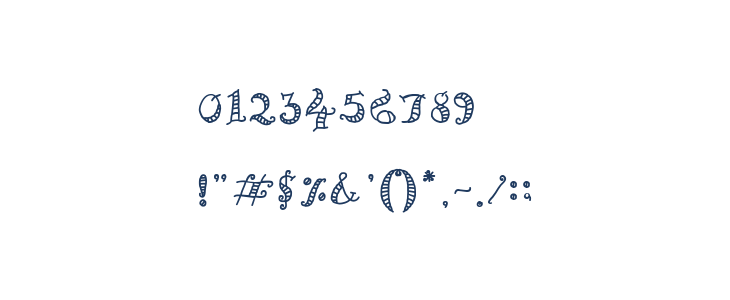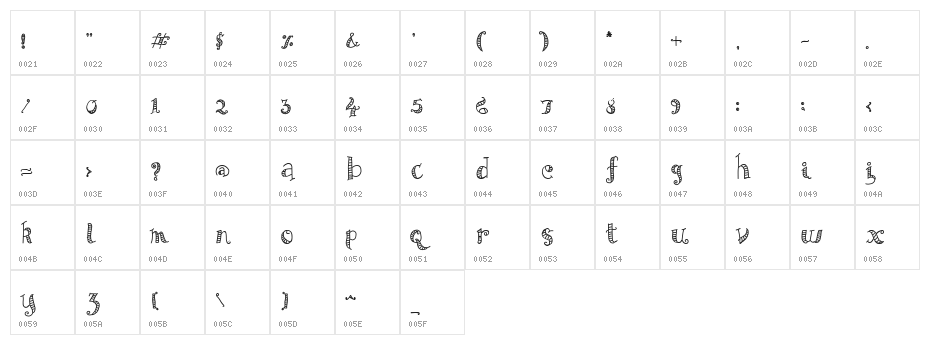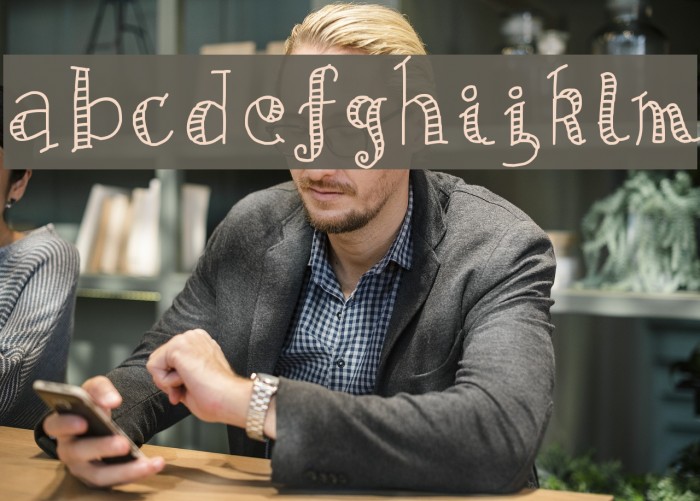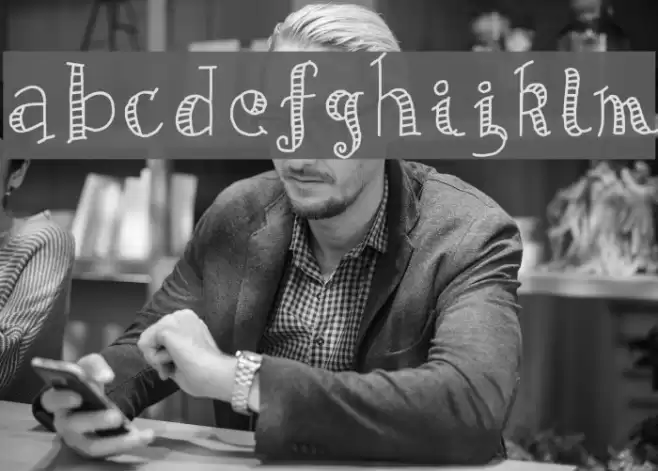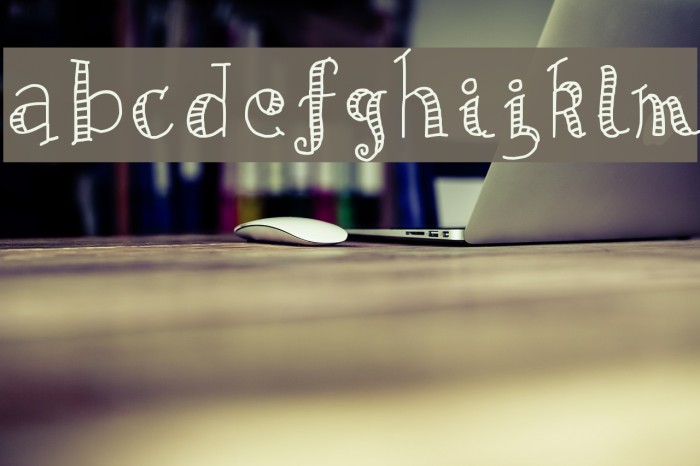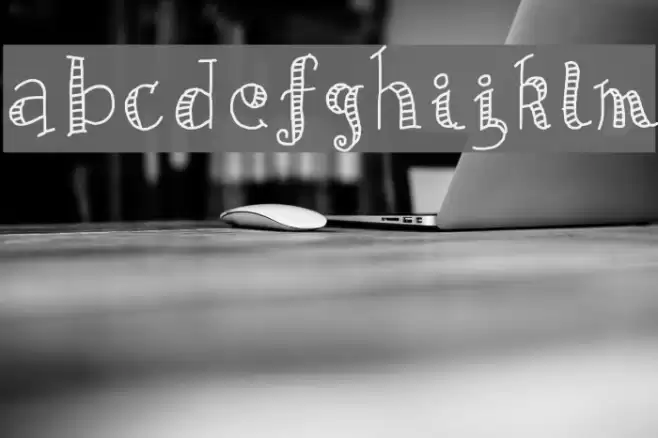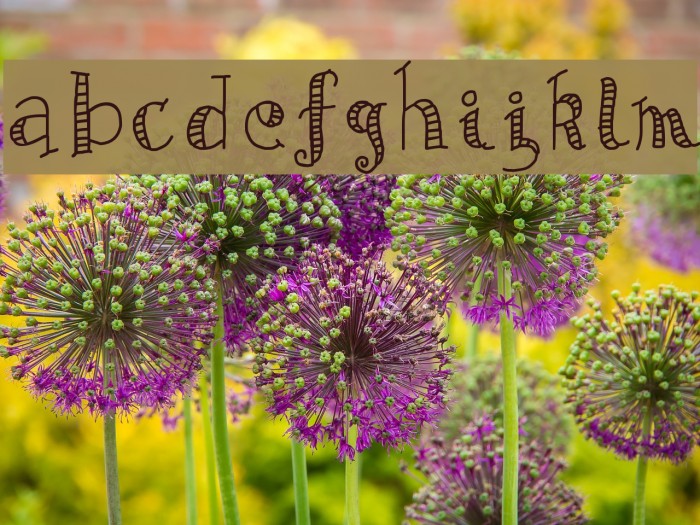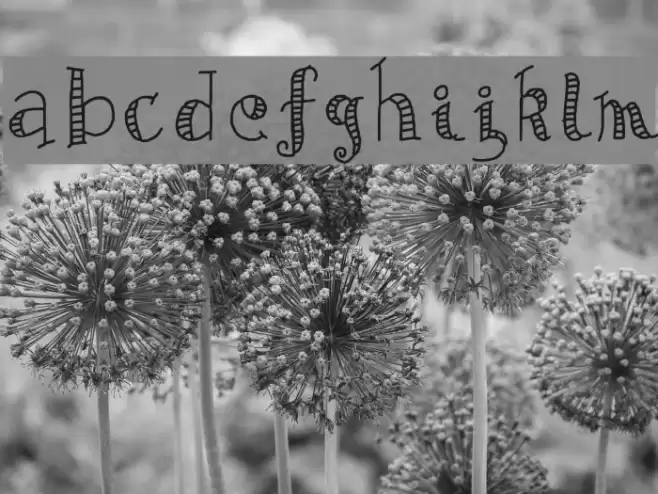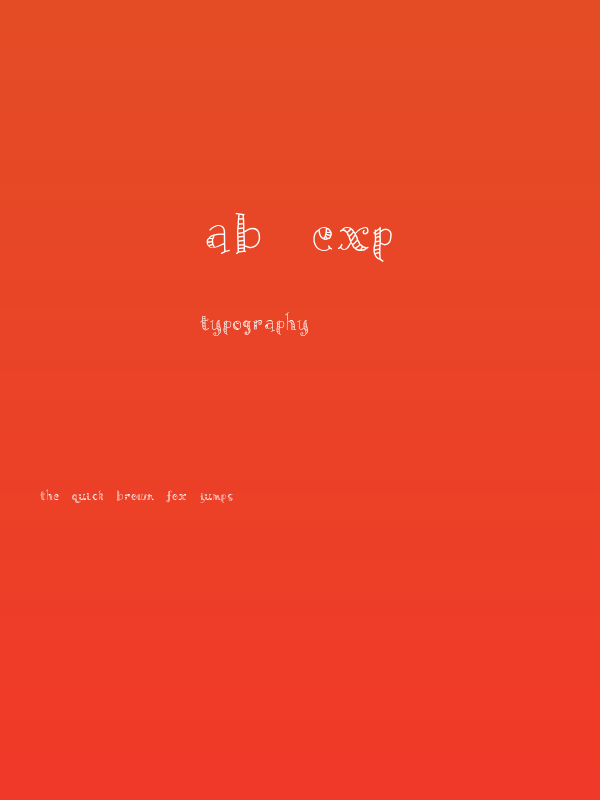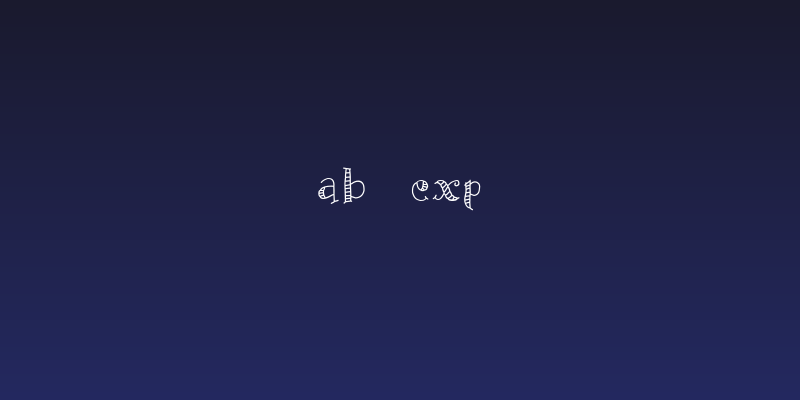
AB Exp Font
This whimsical and playful font features a unique striped pattern within each character, giving it a hand-drawn, artistic feel. The letters are slightly irregular, adding to the charm and individuality of the design. The font includes both uppercase and lowercase letters, numbers, and a variety of special characters, all maintaining the same decorative style. The strokes are consistent in width, providing a balanced look despite the intricate detailing. This font is perfect for projects that require a touch of creativity and fun.
| Proposed Projects | Ideal for children's books, greeting cards, playful branding, and creative posters. |